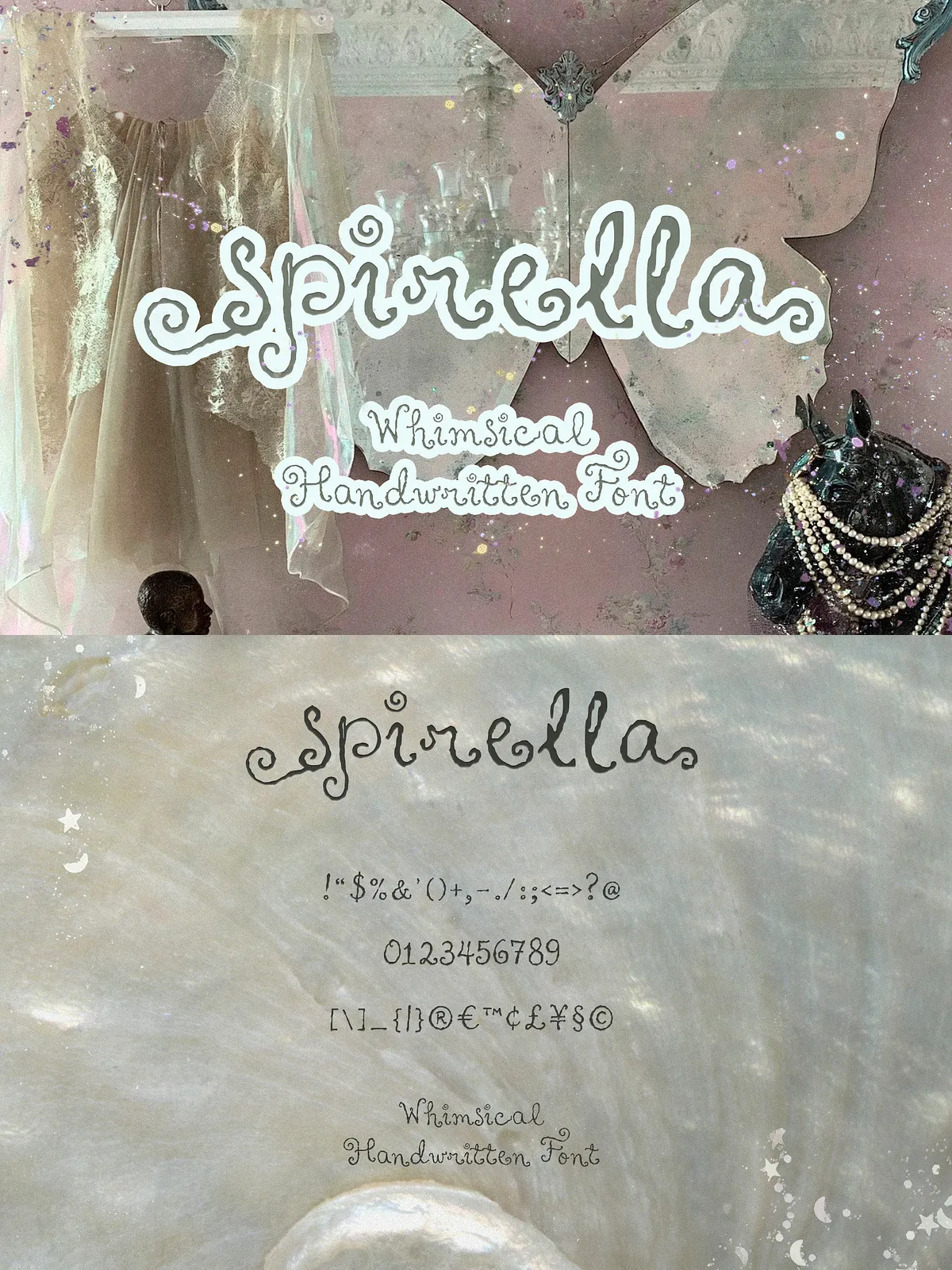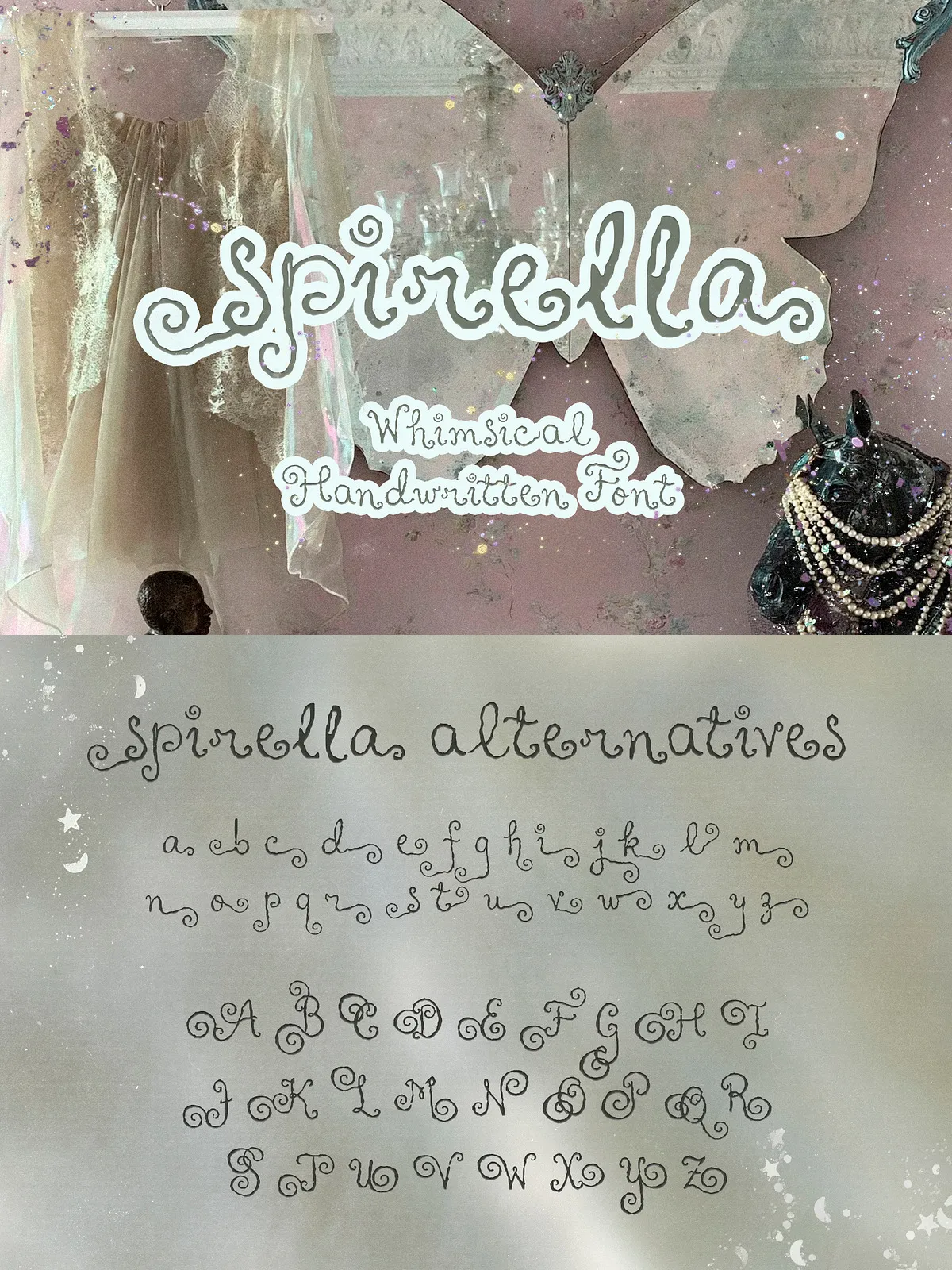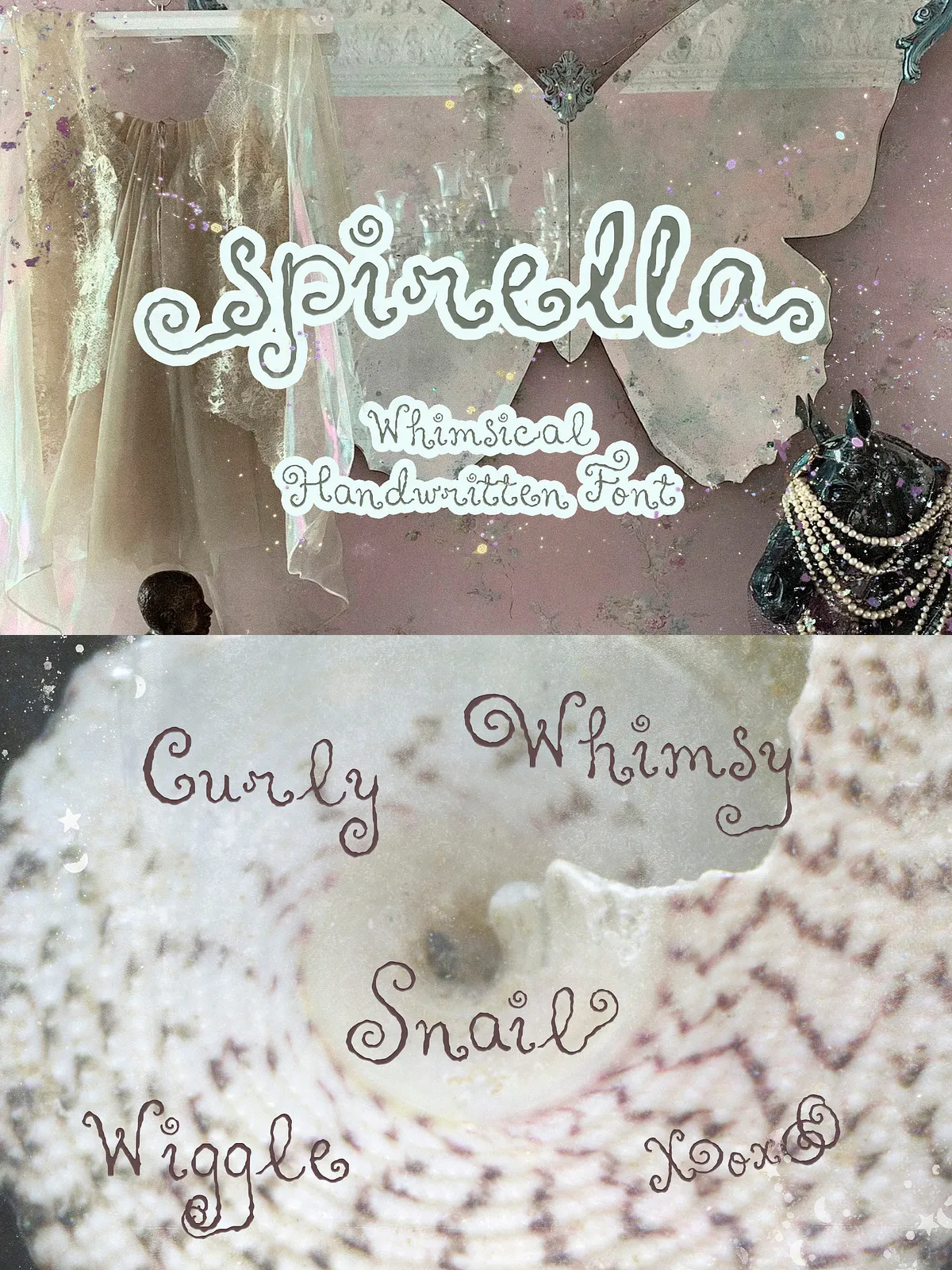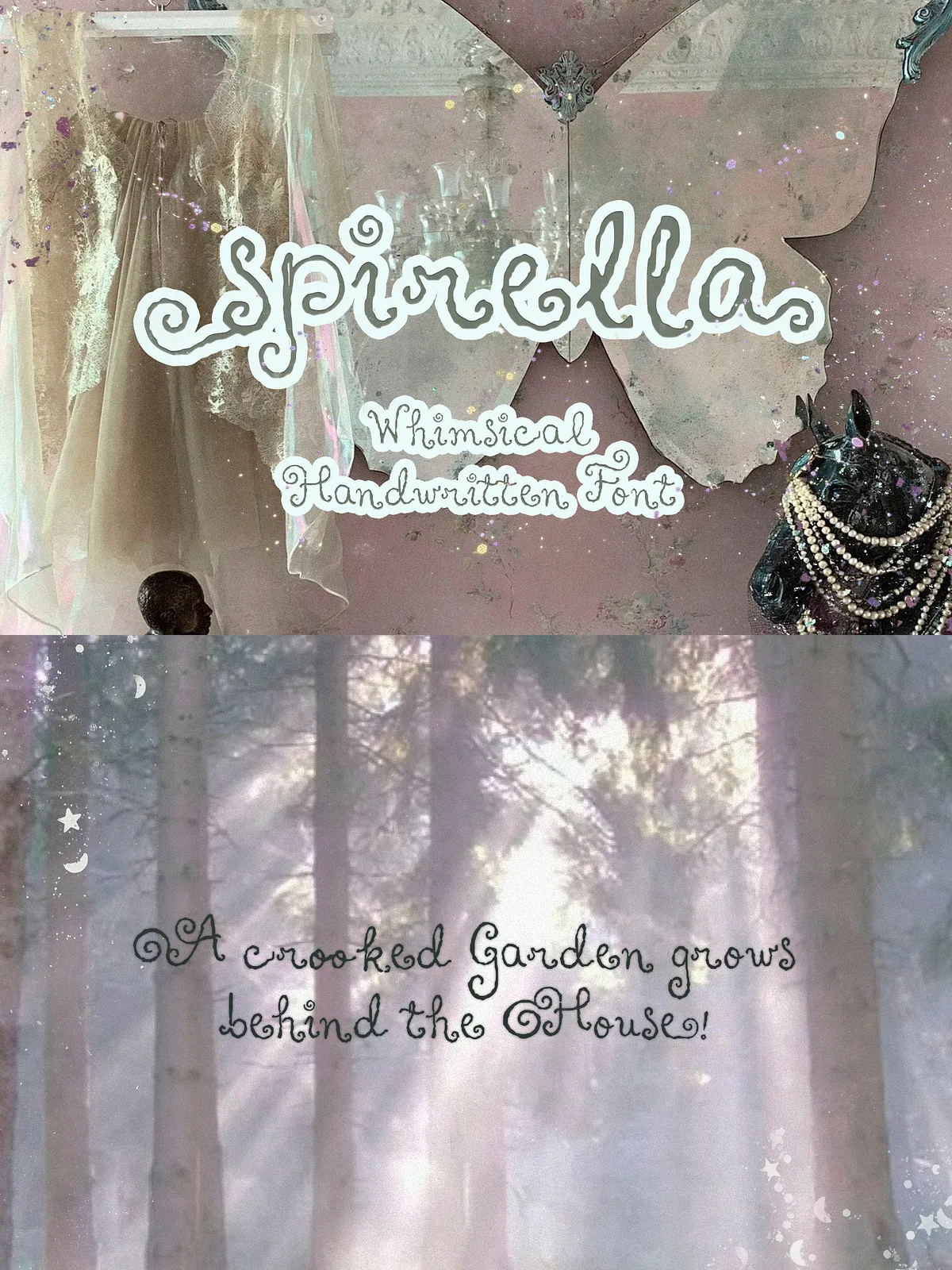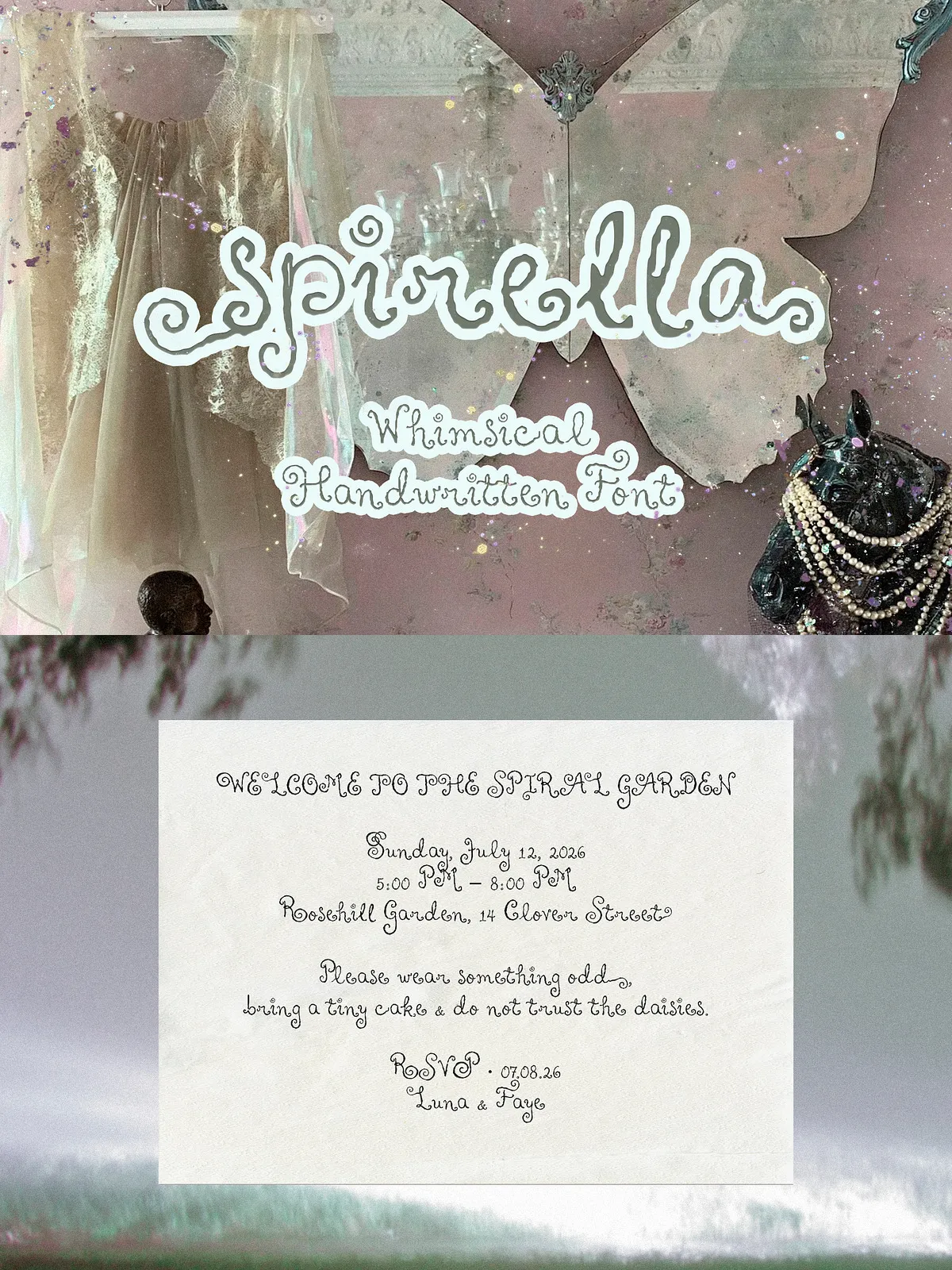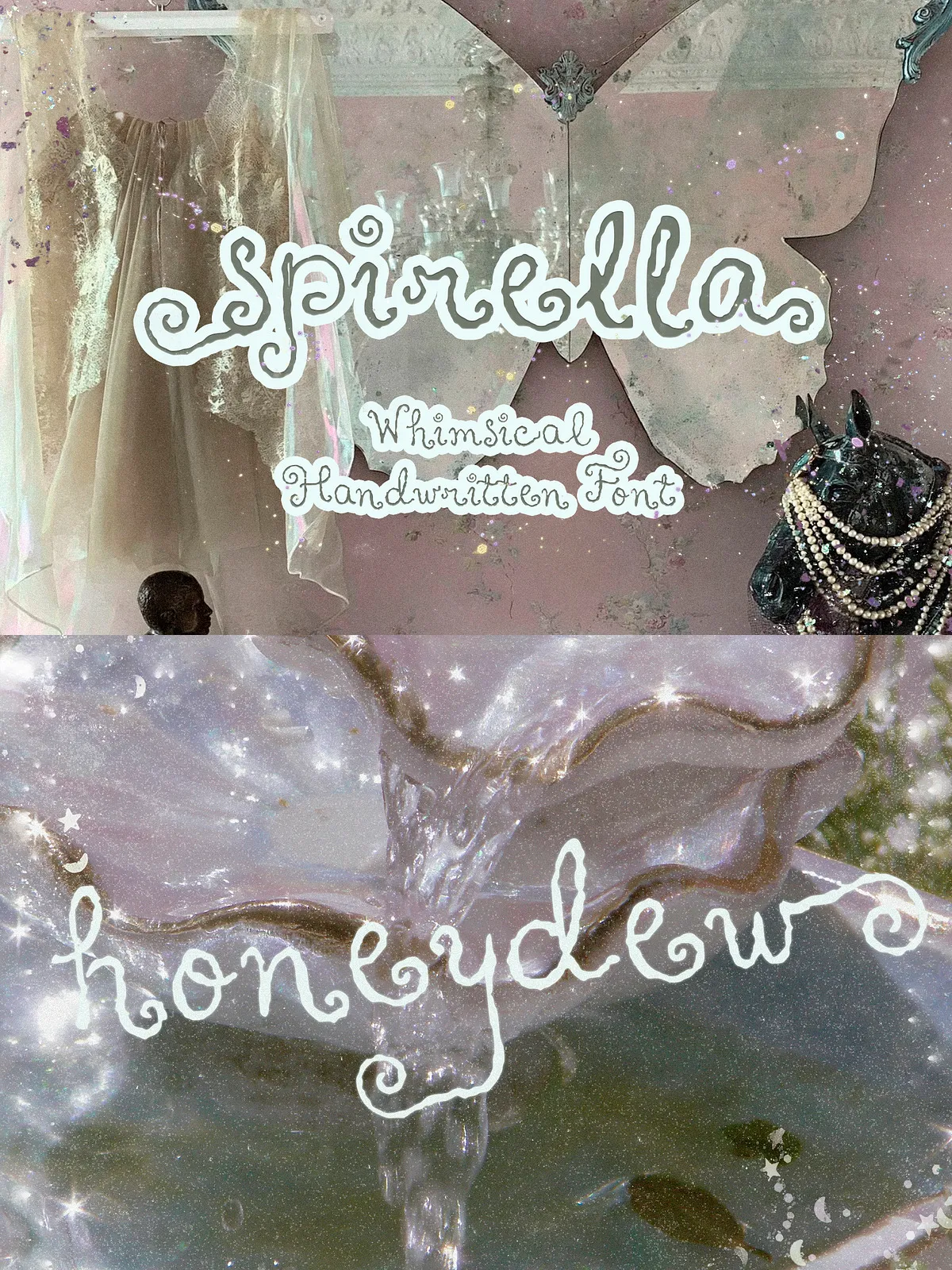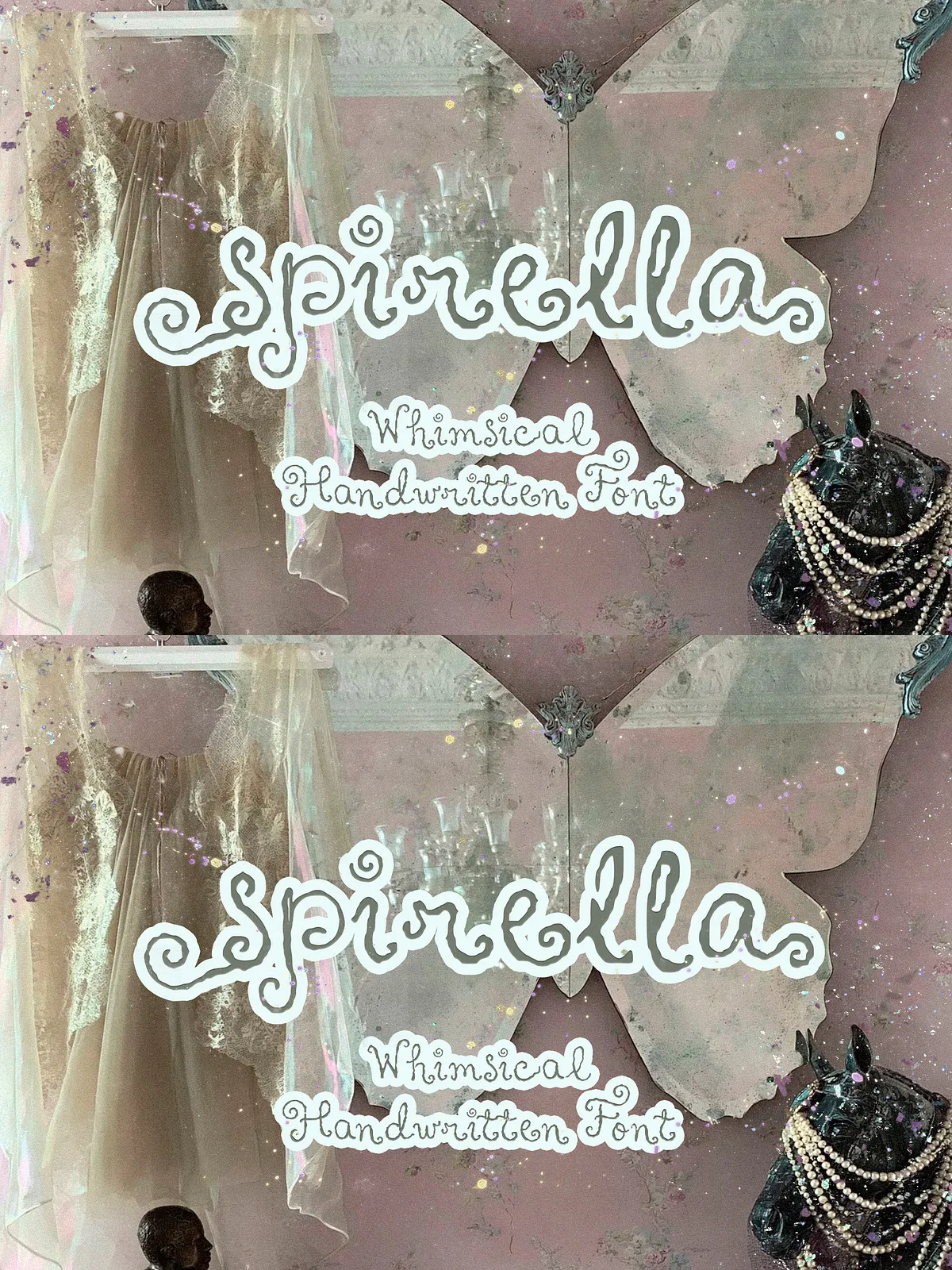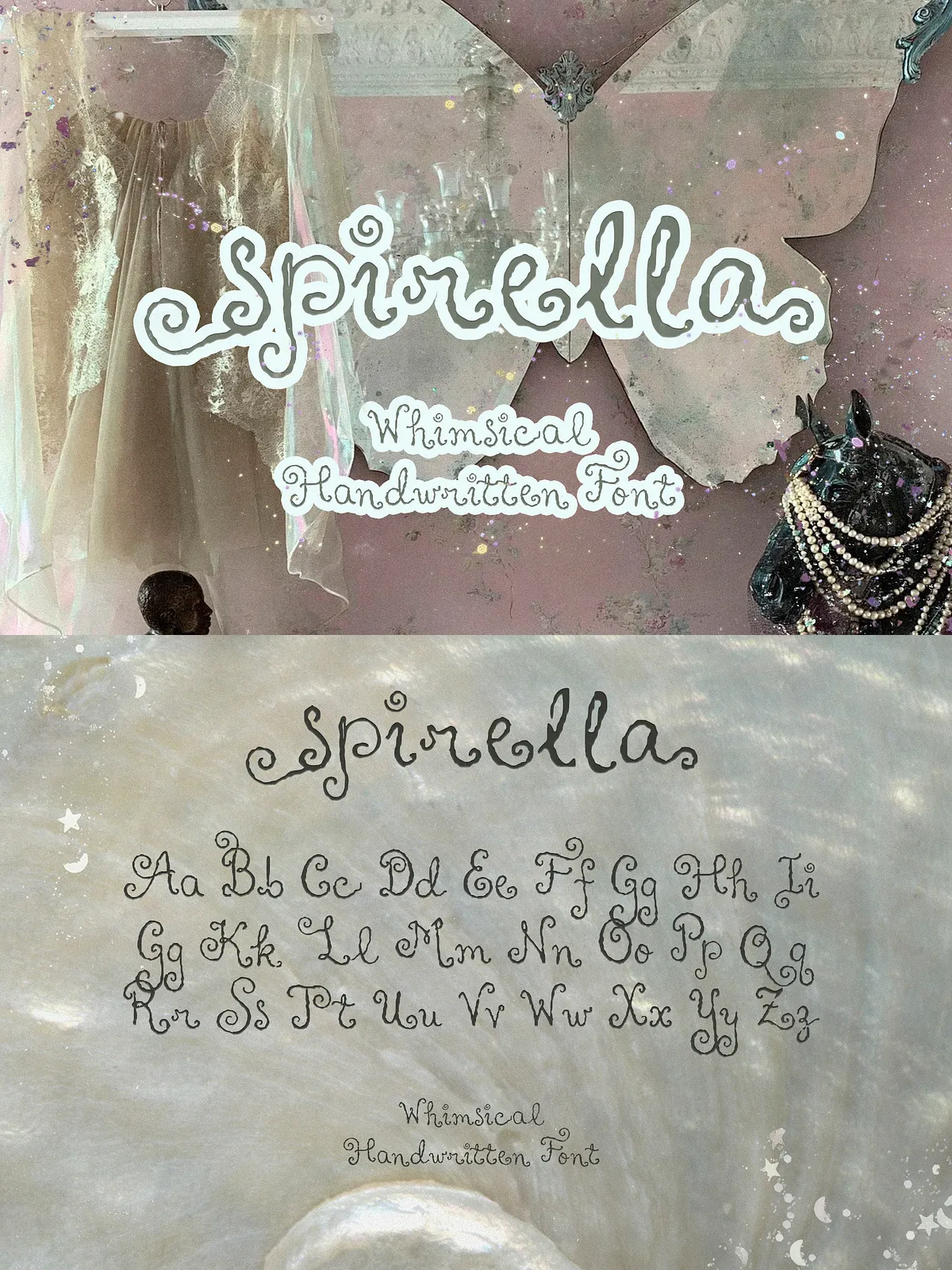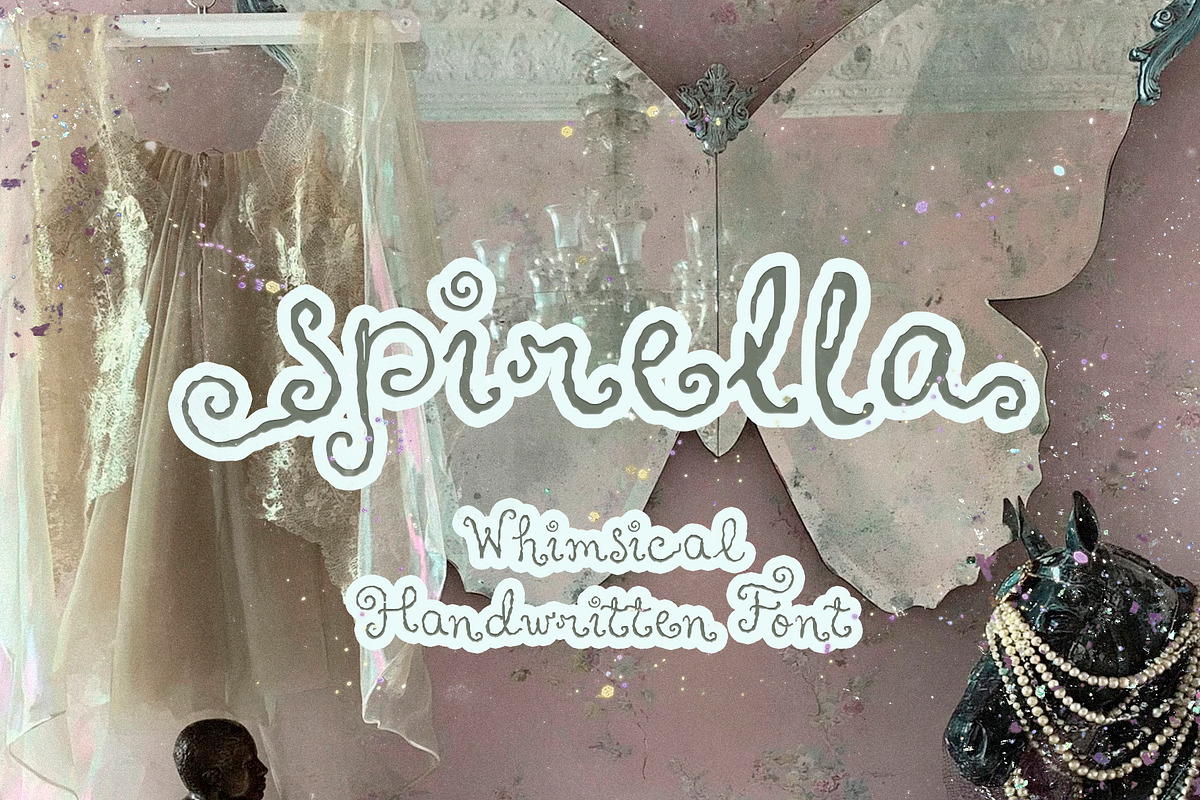
Spirella delivers a lively, handcrafted voice that enhances any project with playful personality. Its curly ends, uneven shapes, and tiny spirals create a distinct, human-made appearance that reads as charming and authentic. Designers choose Spirella when they want a font that communicates warmth, creativity, and a touch of whimsy without sacrificing legibility.
Complete Character Set
Spirella includes uppercase and lowercase letters, numerals, punctuation, and a selection of symbols that support common design needs. Each glyph preserves the font’s handcrafted rhythm so multi-line copy and short headlines maintain a cohesive personality.
Handmade Details
The typeface emphasizes handmade quirks: uneven stroke widths, playful curls on terminals, and irregular baselines that convey movement and character. These details help Spirella stand out in branding and packaging where a human touch matters.
Recommended Uses
Branding & Logos
Use Spirella to create playful logos and wordmarks that feel handcrafted. Its distinctive curls and irregular shapes work especially well for boutique brands, handmade goods, and lifestyle labels seeking an approachable identity.
Invitations & Party Stationery
Design invitations, place cards, and party stationery that feel personal and celebratory. Spirella’s whimsical rhythm creates a friendly tone for garden parties, baby showers, birthday invites, and seasonal gatherings.
Packaging & Labels
Apply Spirella on product labels, stickers, and small-batch packaging to highlight artisanal qualities. The font reads well at medium and large sizes and reinforces the handmade story of craft foods, cosmetics, and gift products.
Social Media & Crafts
Use Spirella in social graphics, quote overlays, and DIY craft templates to add instant charm. Its curves draw attention in thumbnails and hero images while preserving readability in short passages.
How to Use Spirella Effectively
Pairing Suggestions
Pair Spirella with a neutral sans-serif for body text to balance its playful energy. Choose clean, modern sans families for readable paragraphs and allow Spirella to take the spotlight in headings, badges, and accents.
Layout Tips
- Reserve Spirella for headlines, subheads, and short decorative lines rather than long paragraphs.
- Adjust letter spacing slightly when setting all-caps to preserve the whimsical rhythm.
- Use larger sizes for product labels and hero headlines to showcase the curly details without crowding.